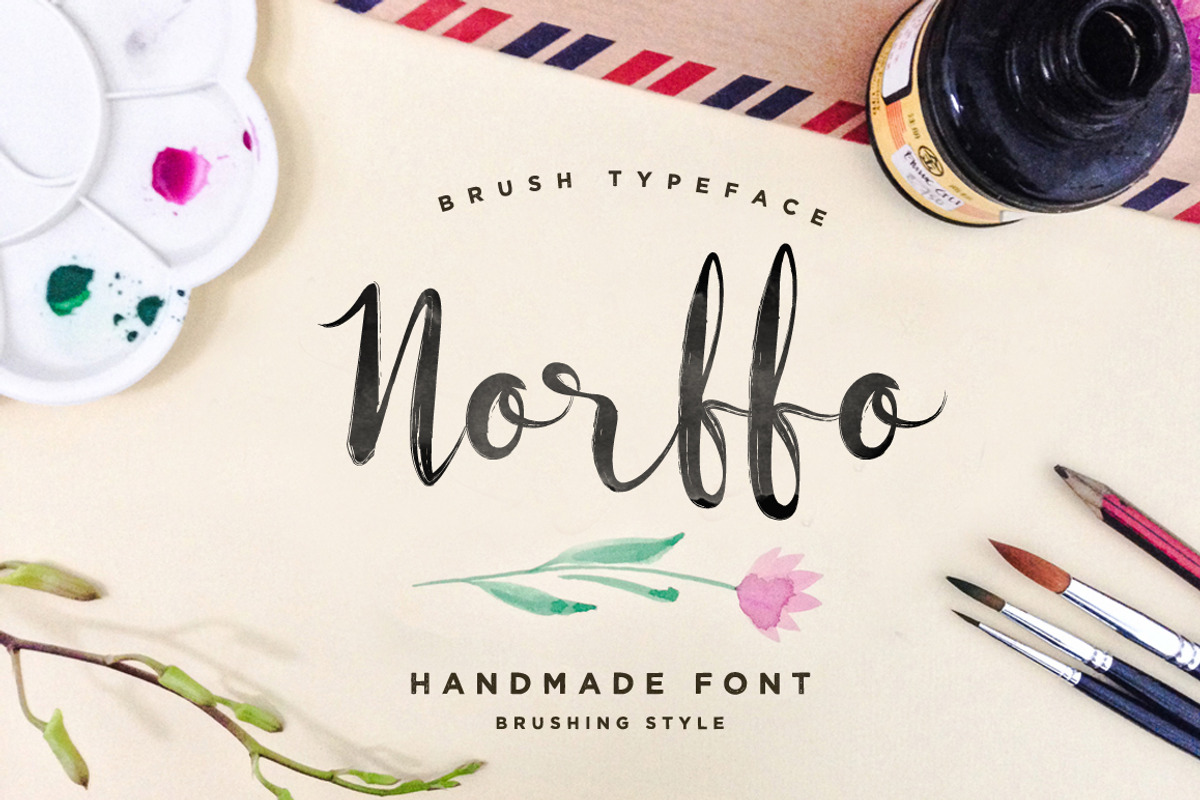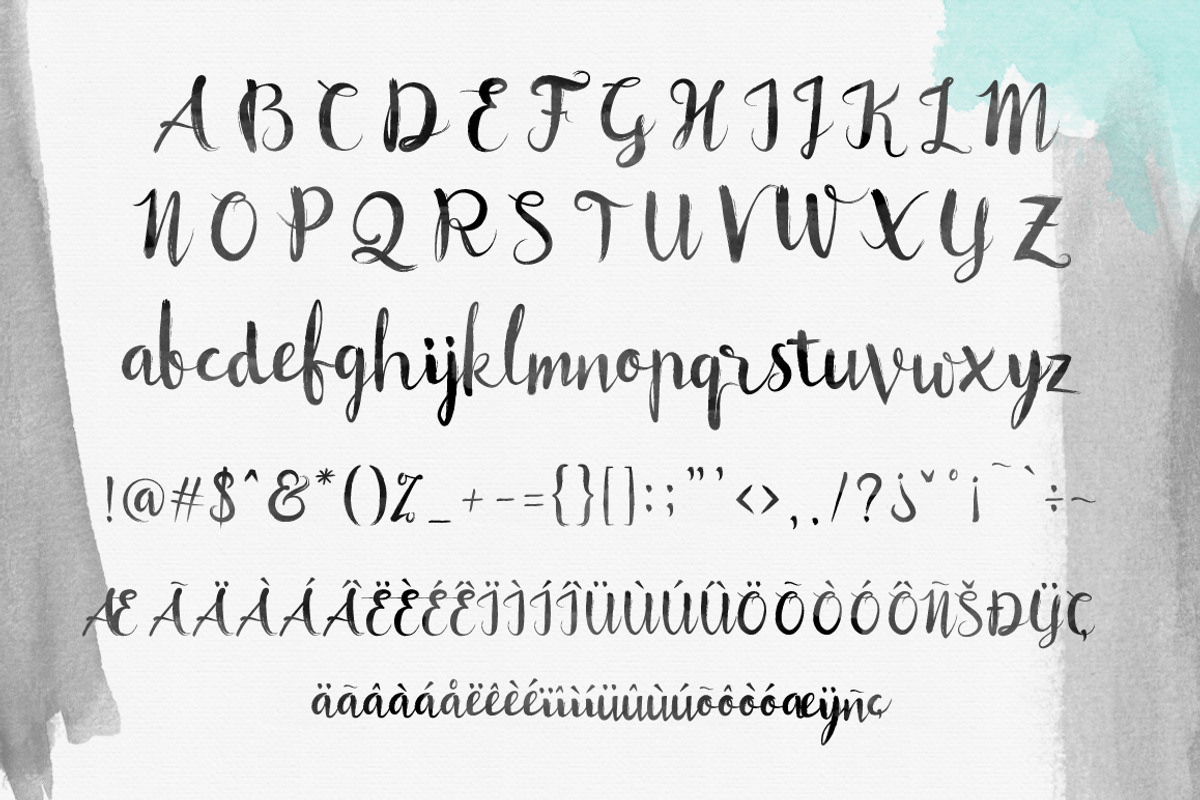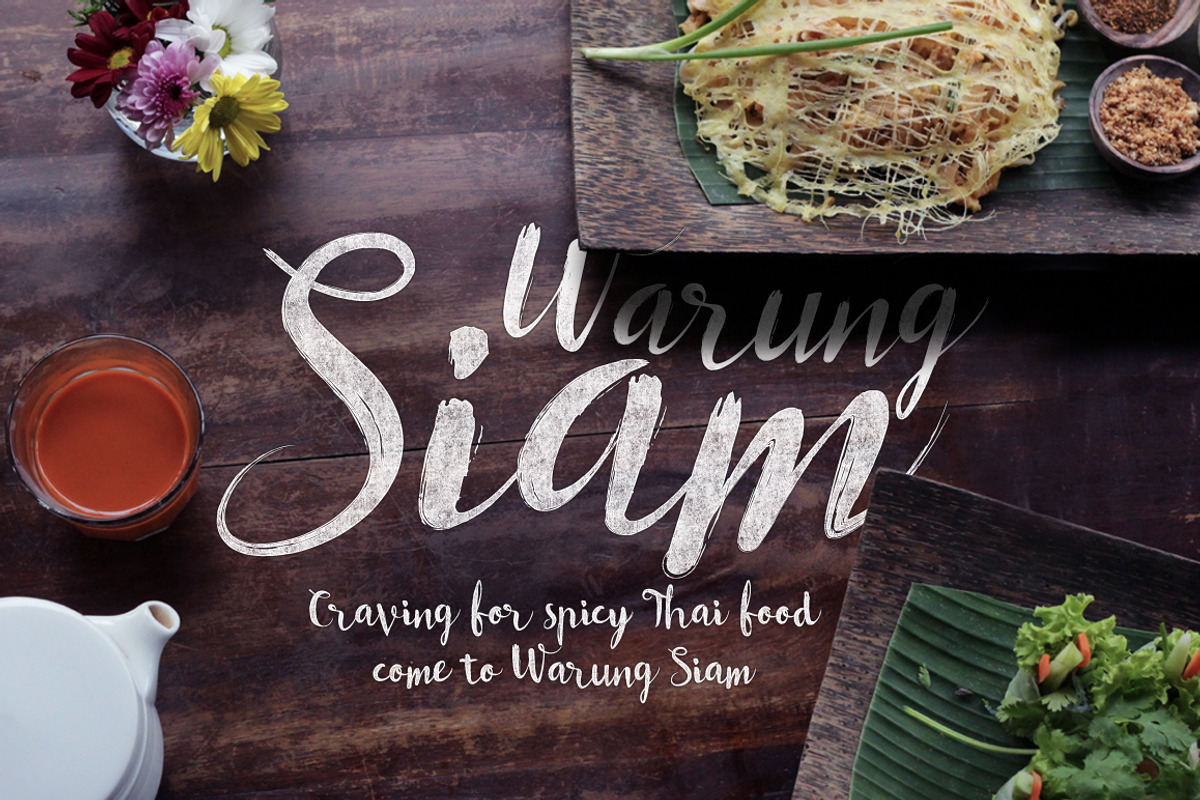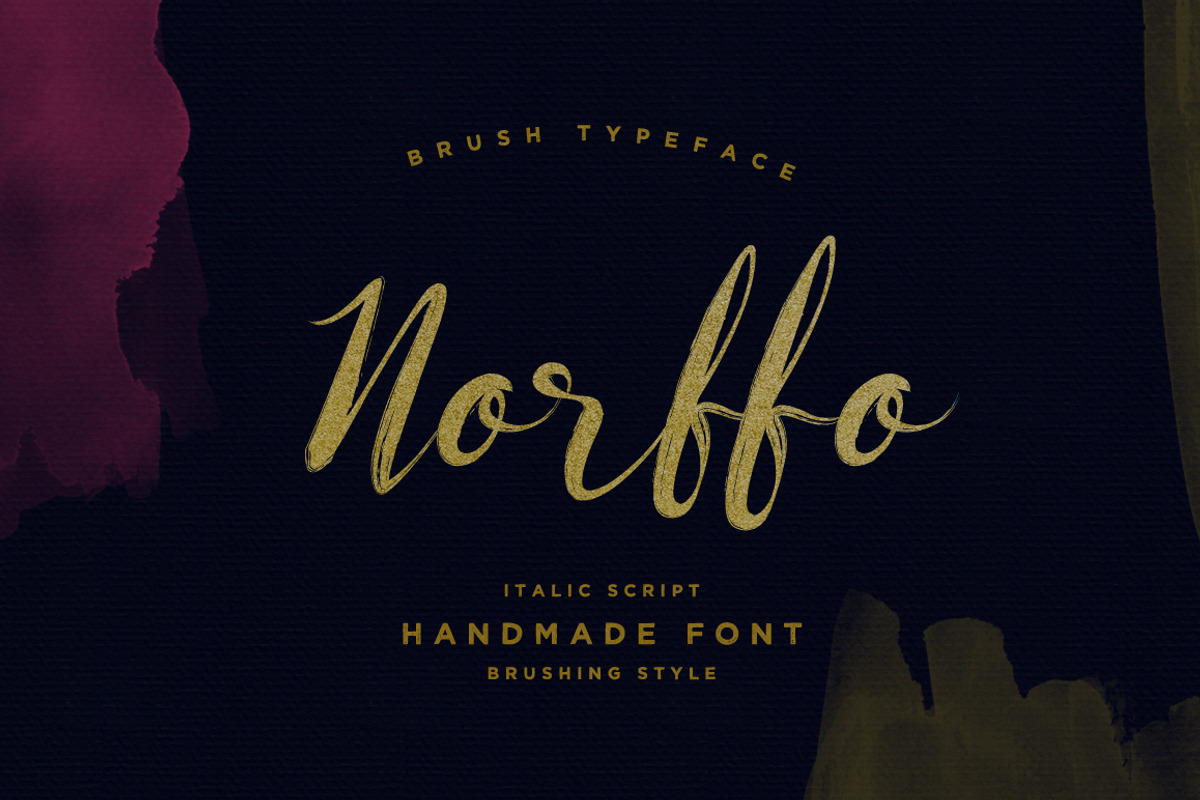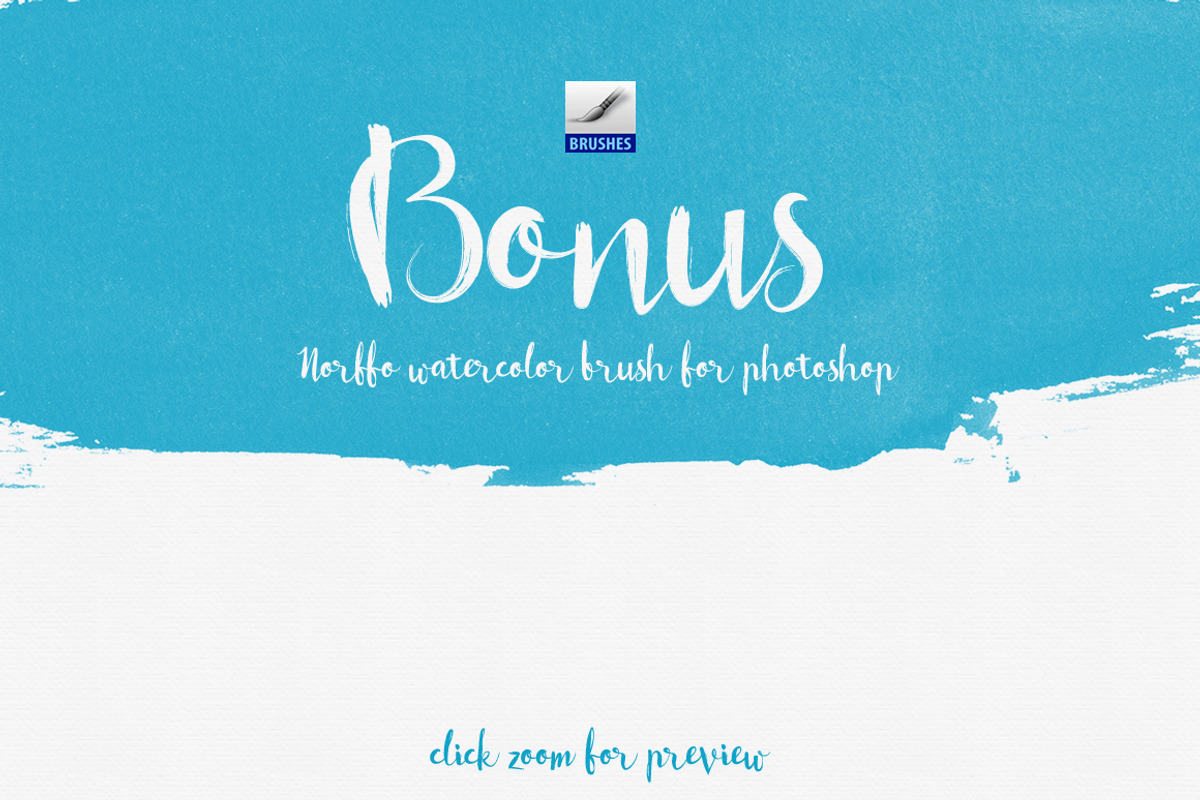
Norffo Font + Watercolor Brush
Norffo is a font that uses a brush handwriting font style. Character is very unique and fun, suitable for a wedding invitation, badges, foods menu design etc. Small font size (ex : 11pt letter) still look very good and readable. Bigger size of this font will show great detail of this brush character. This font contain two formats such as OTF ( Open Type ) and TTF (True Type). Not only that, you also get italic character of this font beside regular character with in this font package.
For those who love to create project with fun concept design, Norffo handwriting brush style typeface is suitable for your font collection. You will also get a bonus of 11 watercolor brush for photoshop (can be seen in the last preview and click to zoom)